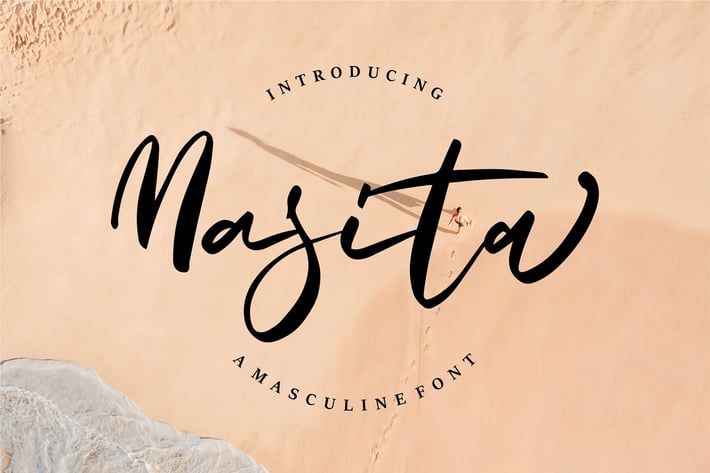
Masita | A Masculine Script Font
Masita | A Masculine Script Font with a calligraphy style, So beautiful on invitation like greeting cards, branding materials, business cards, quotes, posters, and more!